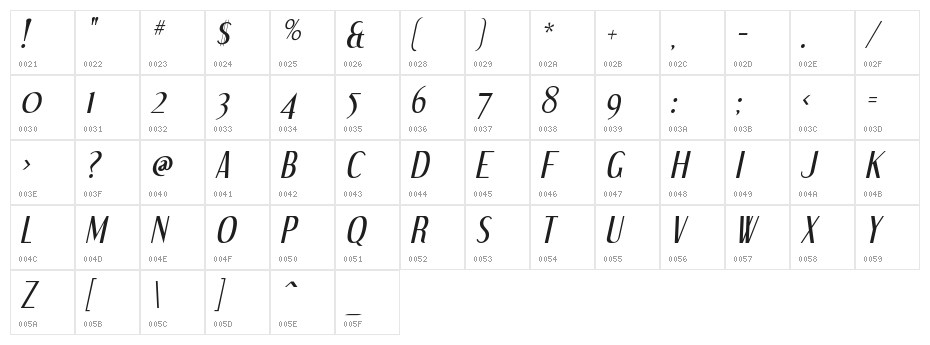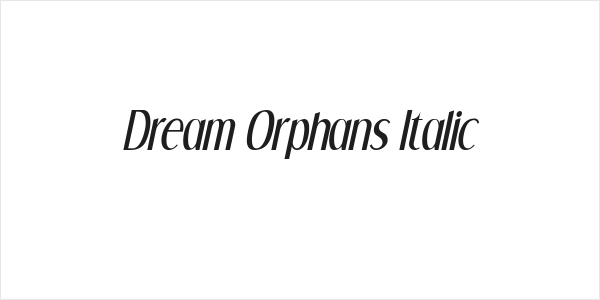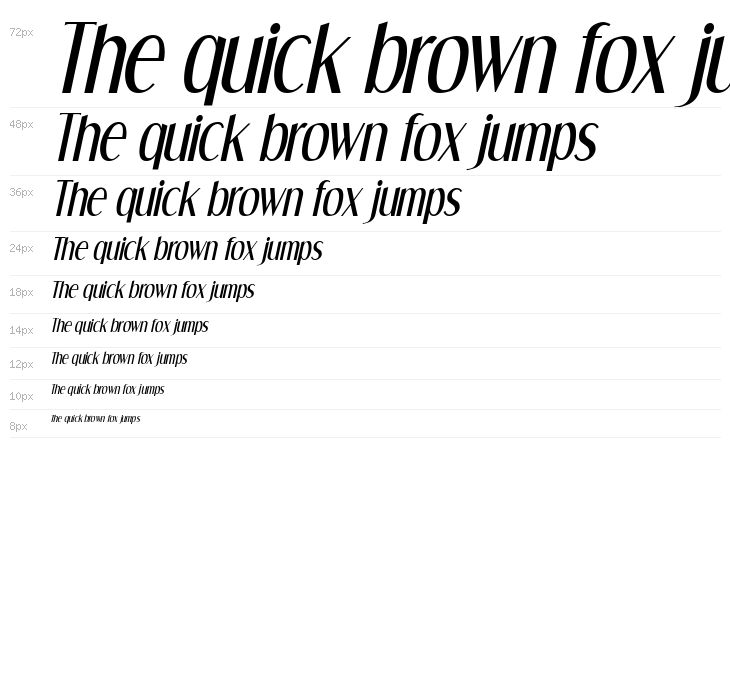
Dream Orphans Italic Font
Dream Orphans Italic Description
This font features a sleek and elegant italic style with a modern touch. The characters are slightly elongated, giving a sense of motion and fluidity. The uppercase letters are tall and narrow, while the lowercase letters maintain a consistent flow, enhancing readability. The numerals are distinct and stylish, complementing the overall design. Special characters are crafted with the same attention to detail, ensuring uniformity across all glyphs. This font's sophisticated appearance makes it suitable for a variety of applications, from branding to editorial design.
Use CaseHeadlines, Logos, Editorial design
Proposed ProjectsIdeal for branding, editorial design, fashion magazines, and luxury product packaging.